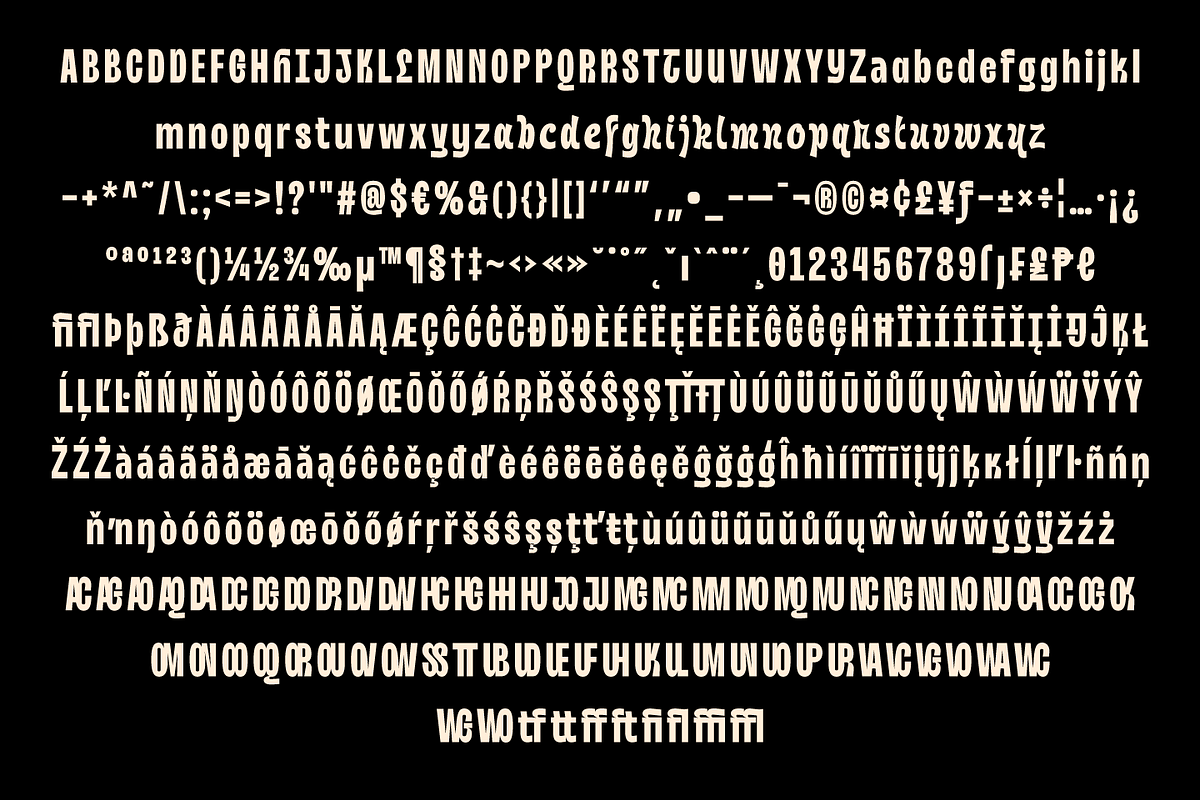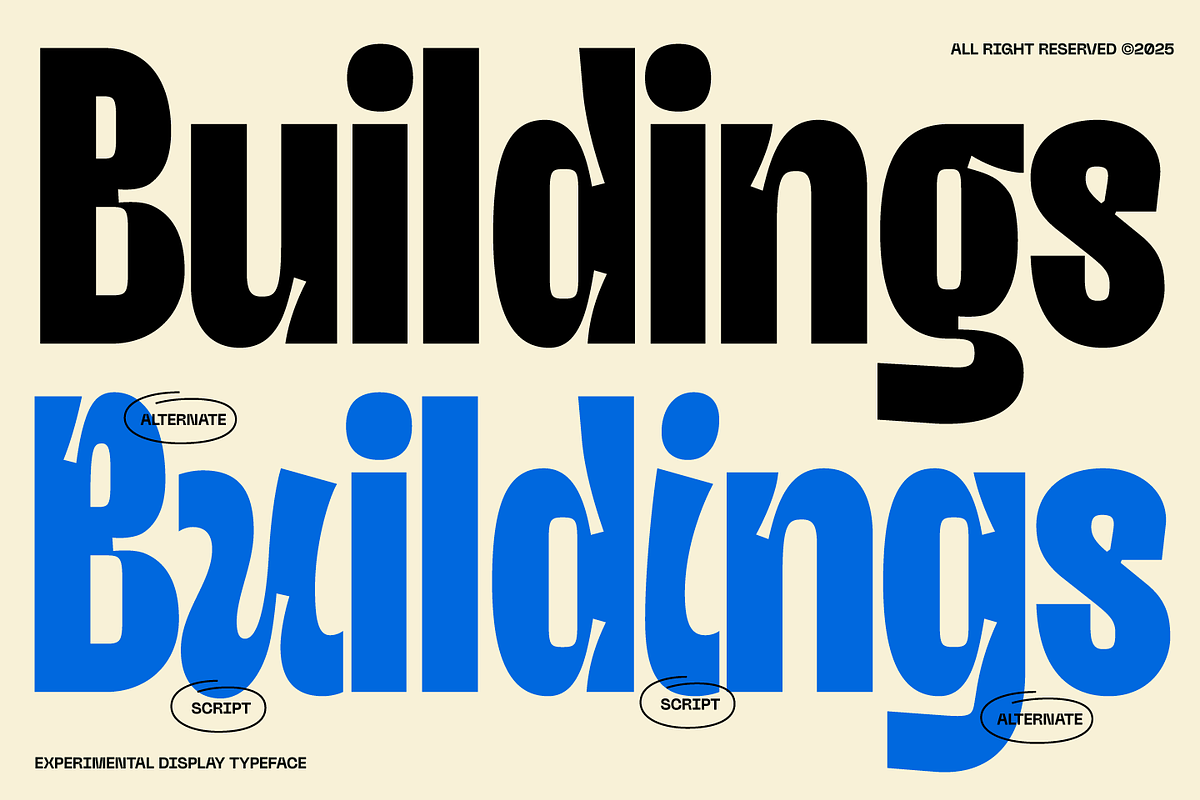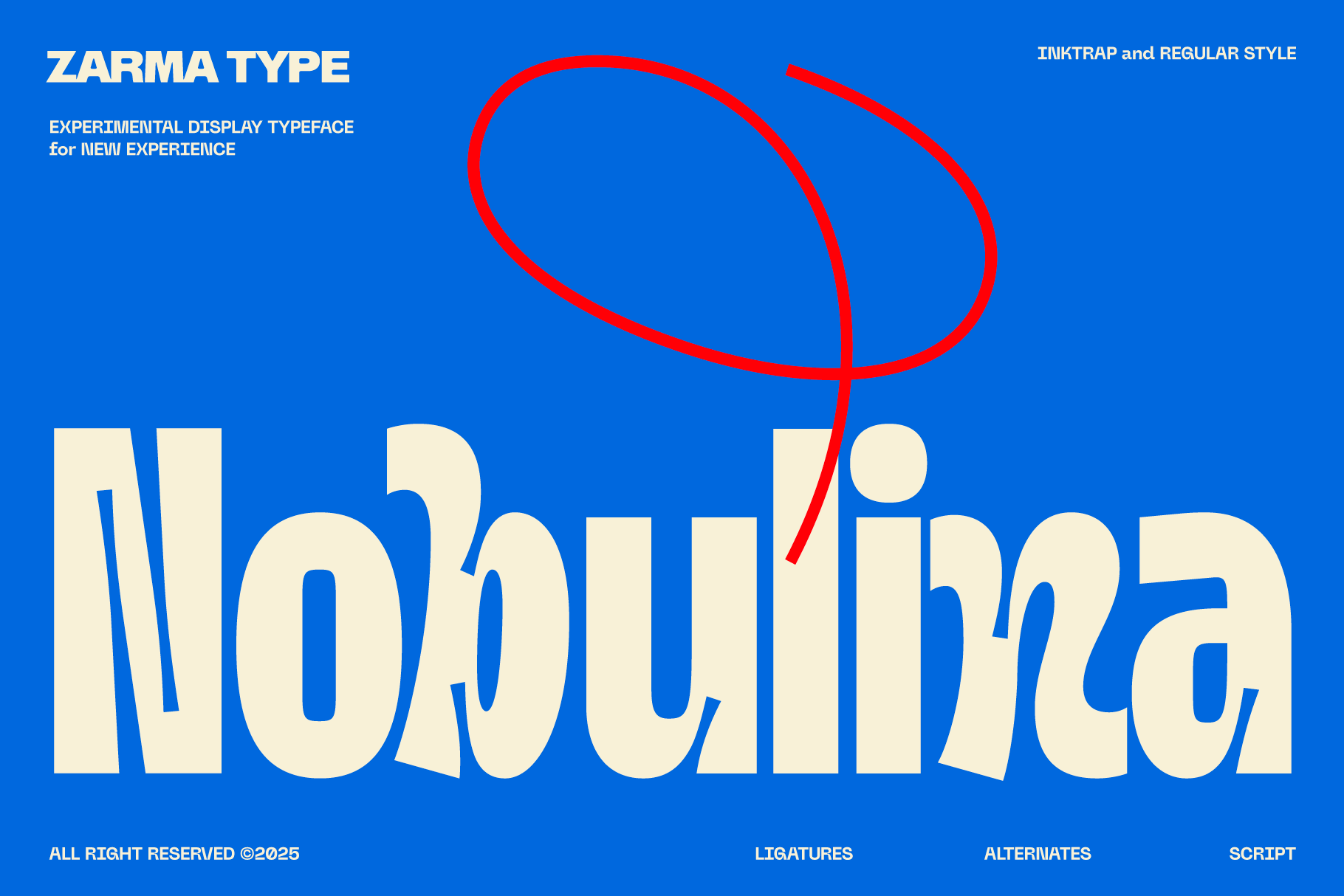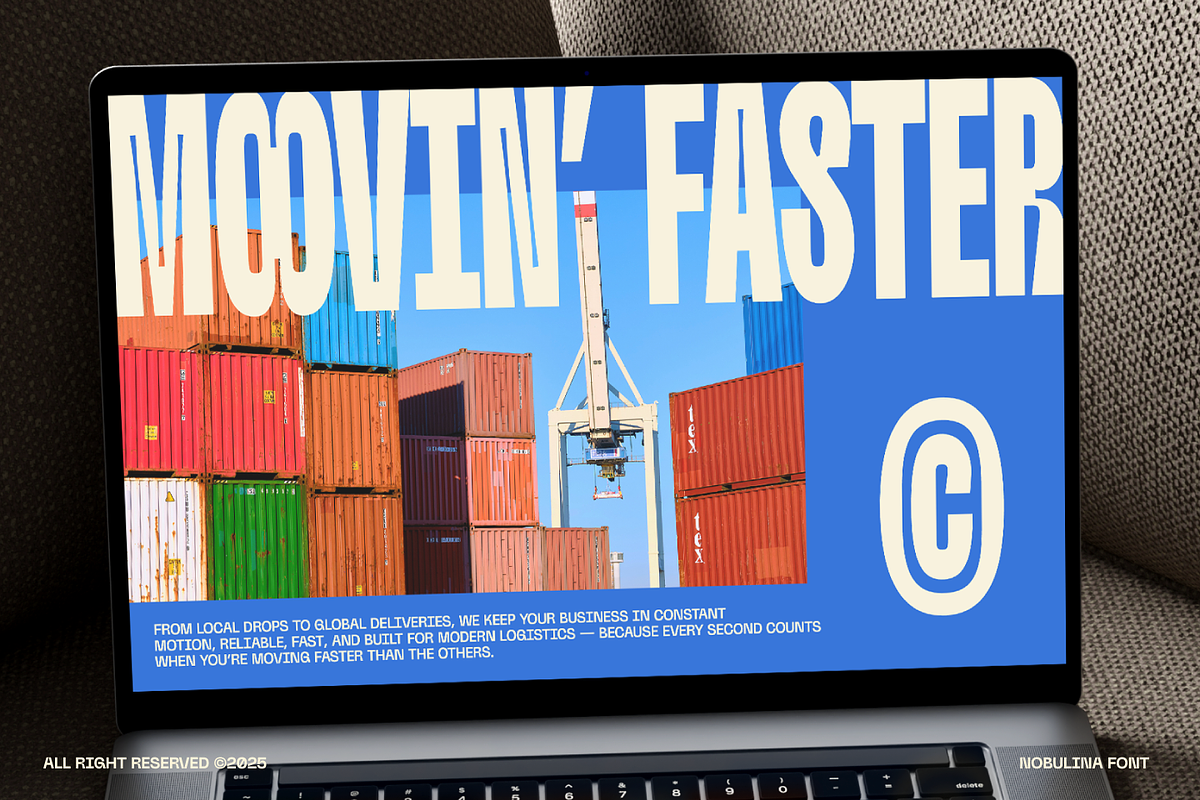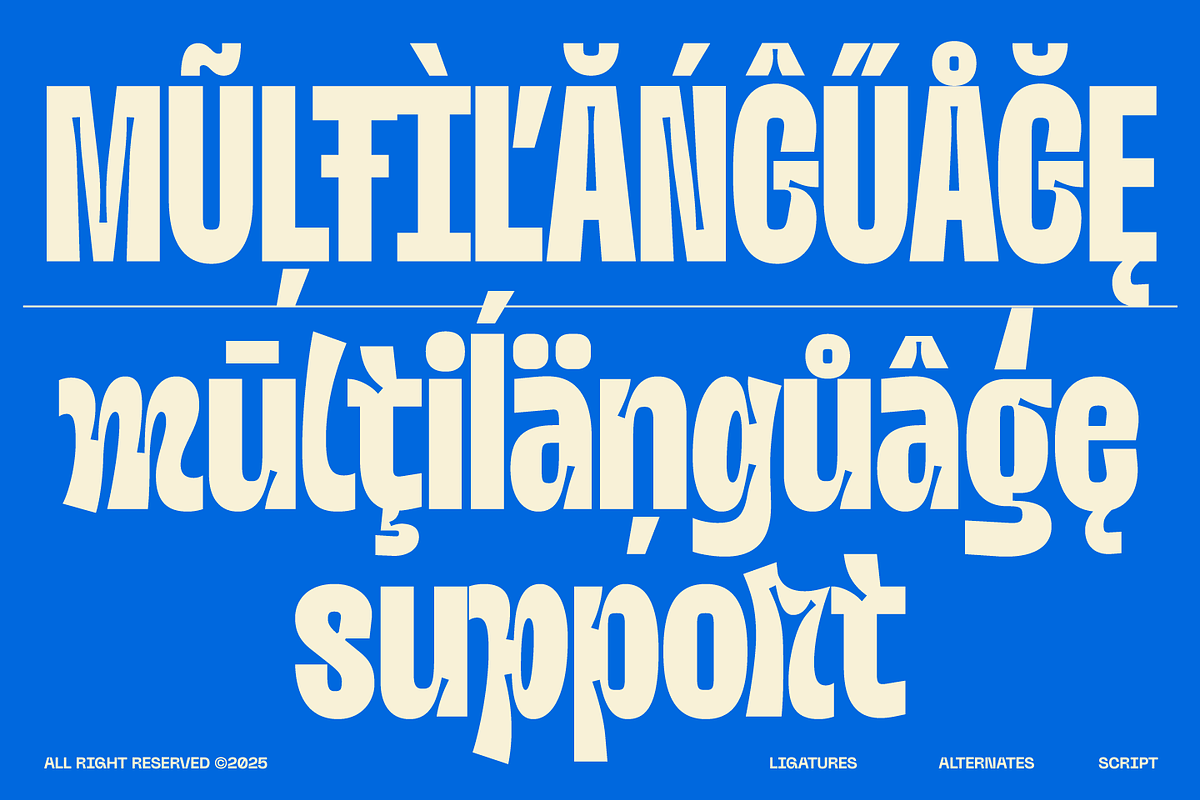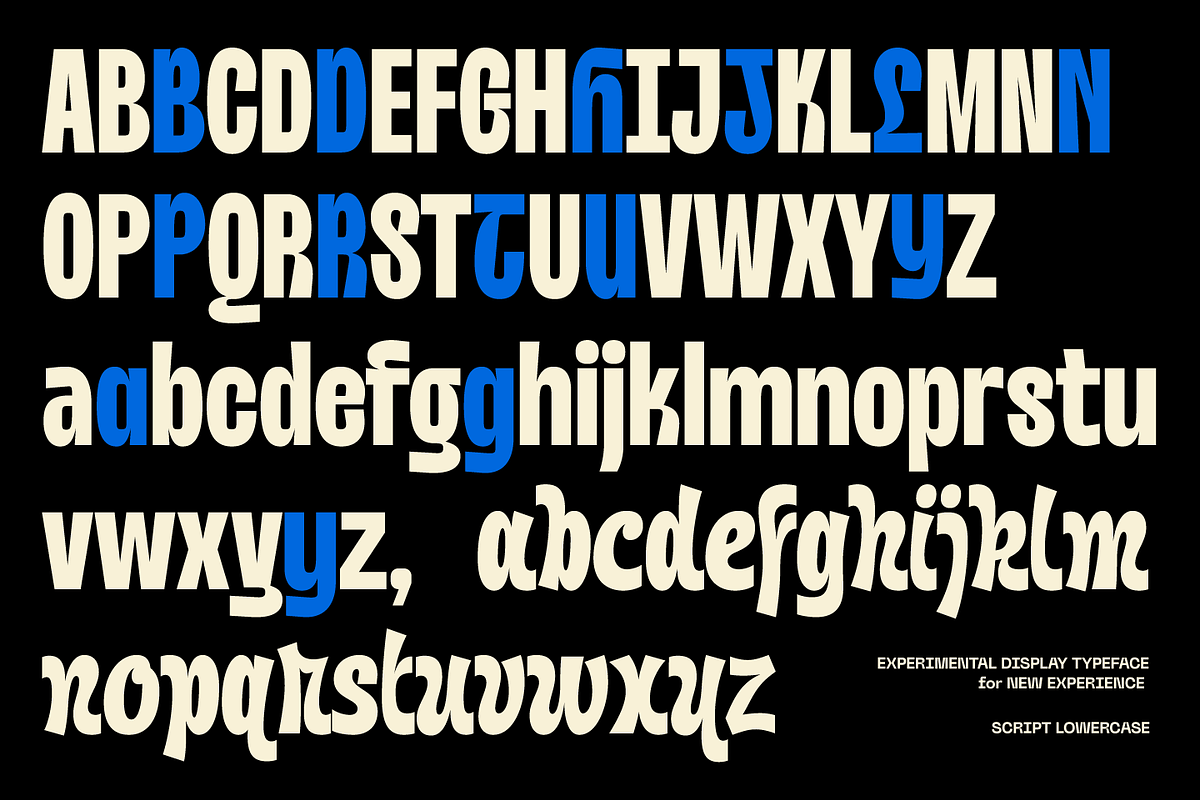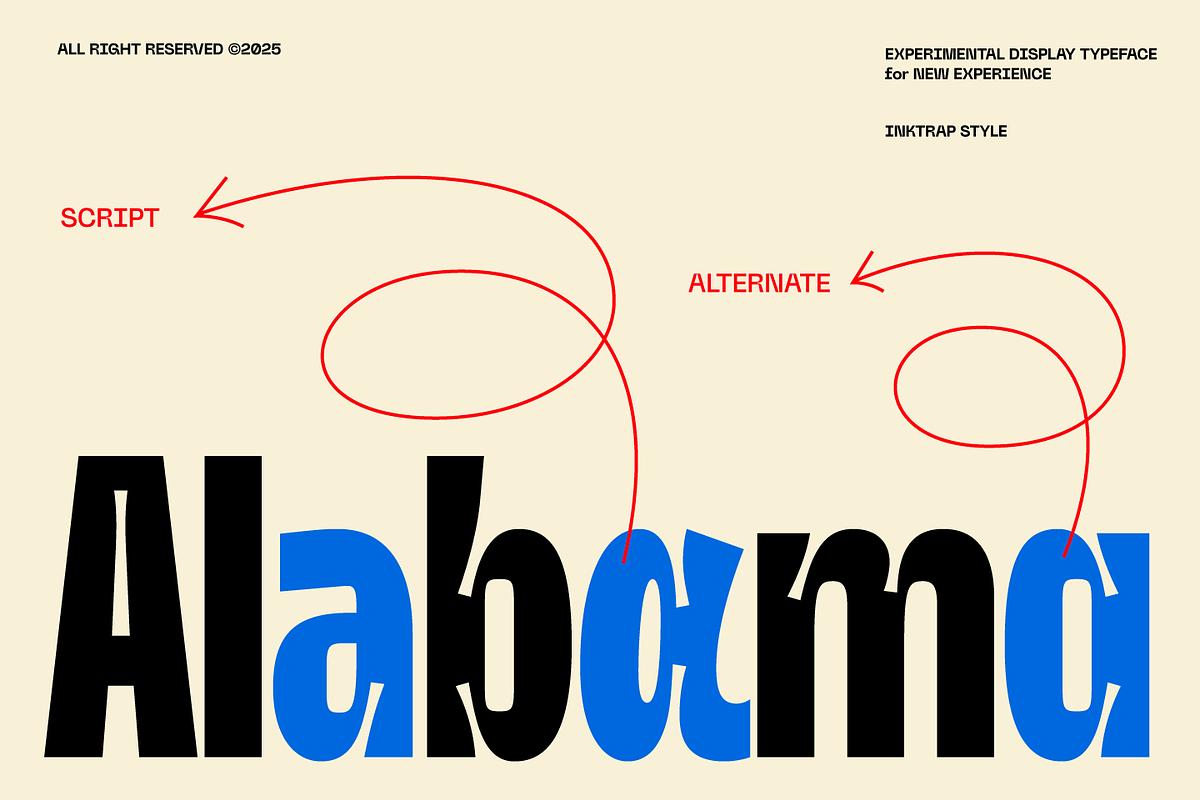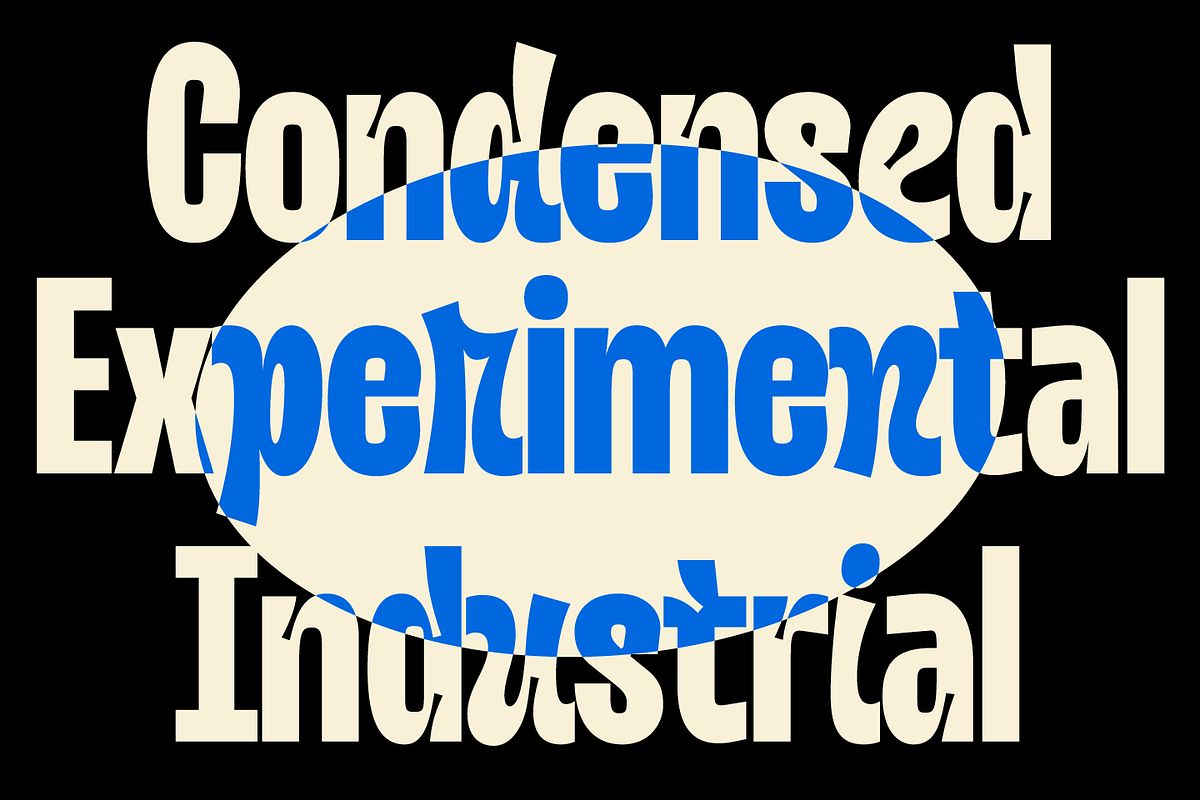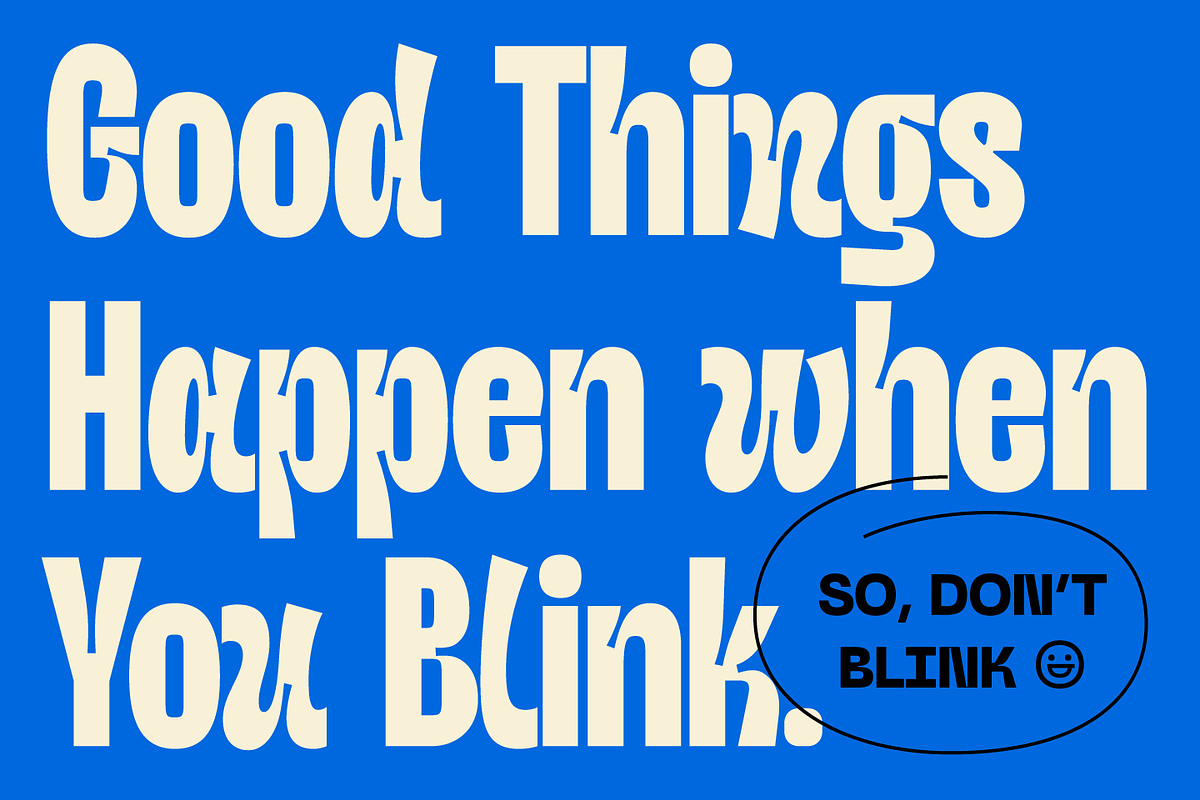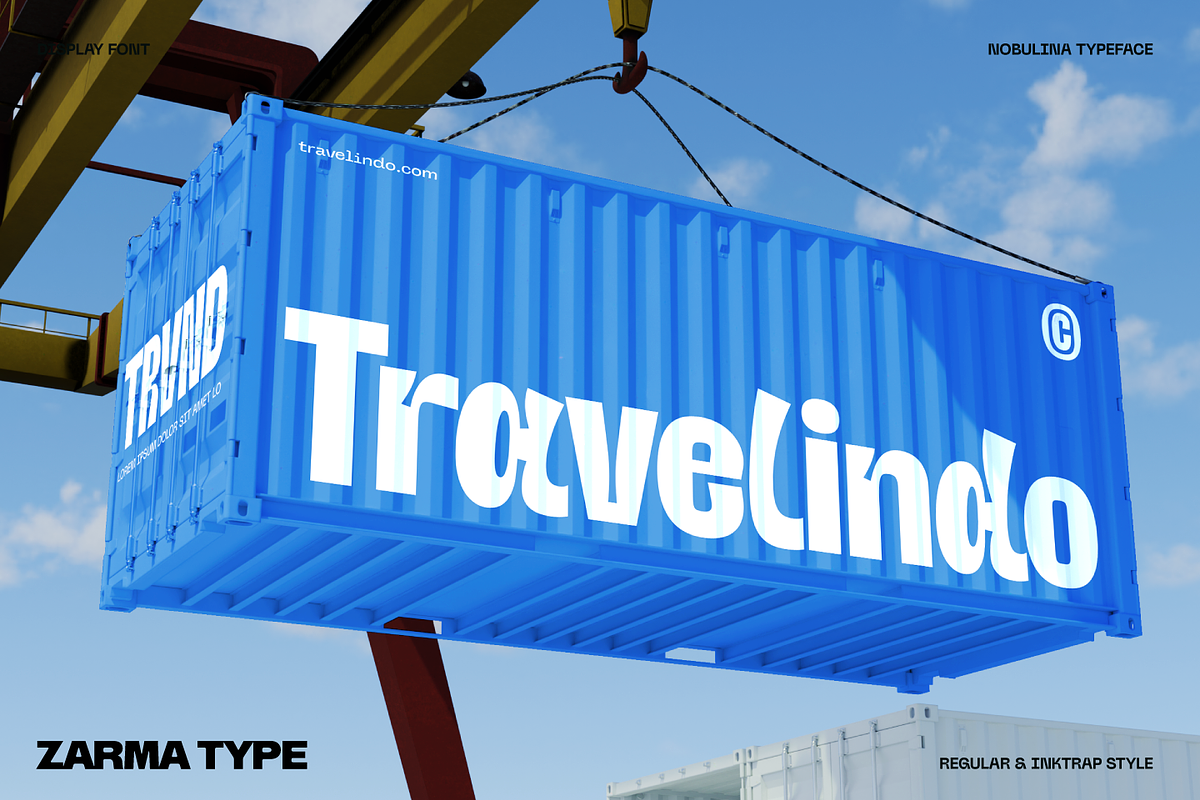
Nobulina - Experimental Display Font
Nobulina is an experimental display font that fuses the brutalist edge of condensed sans with the fluid motion of expressive script. Designed with intentional tension between structure and flow, this font brings industrial strength and expressive charm into perfect balance. The inktraps aren't just functional—they're stylistic punches that emphasize form while guiding the eye. Whether used in branding, posters, or editorial headlines, Nobulina stands out as a high-contrast type system with an unmistakable voice.
From gritty urban projects to high-impact layouts, Nobulina dares to mix genres. It effortlessly blends rigid geometric elements with unexpected alternates and stylistic twists. The result is a font that feels bold, technical, and human all at once. With both script and condensed sans versions included, you can build layered identities, brutalist packaging, or experimental compositions that break the grid—without losing clarity.
Perfect for: Experimental branding, brutalist posters, album covers, tech event visuals, editorial headlines, typographic exploration, condensed layouts, futuristic packaging, urban signage, campaign design.
Featrures:
- Condensed Sans and Script combination
- Uppercase and Lowercase Character Set
- Numbers and Punctuation
- Standard & 60+ Discretionary Ligatures
- Stylistic Alternate
Take your type exploration to the next level with Nobulina. Perfect for designers who love to bend rules, blur boundaries, and still deliver impact with every letter.